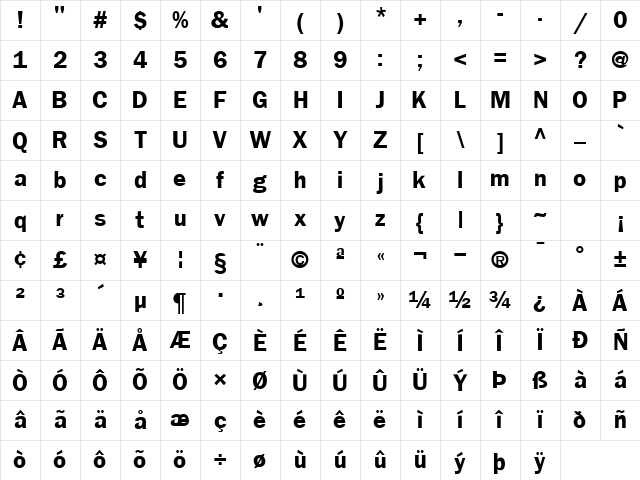
Complete FranklinGothicSSK Bold glyph index. Displaying only characters natively supported by FranklinGothicSSK Bold font.
FranklinGothicSSK takes a clean, functional approach - its unadorned letterforms prioritise legibility and work reliably across screen and print environments. Its bold stroke weight gives it real presence on the page.
Font Pairing: Use FranklinGothicSSK for headlines alongside a lighter-weight sans or serif for body copy to establish clear visual hierarchy.
Pro Tip: Use FranklinGothicSSK for UI labels, navigation, and short-form body copy where clean legibility is the priority.